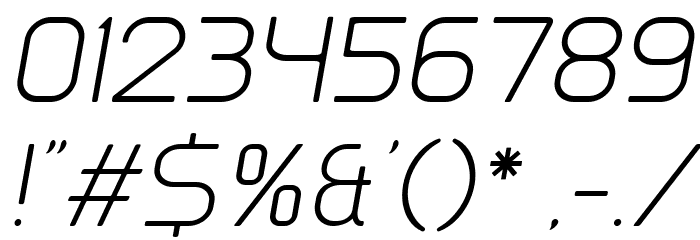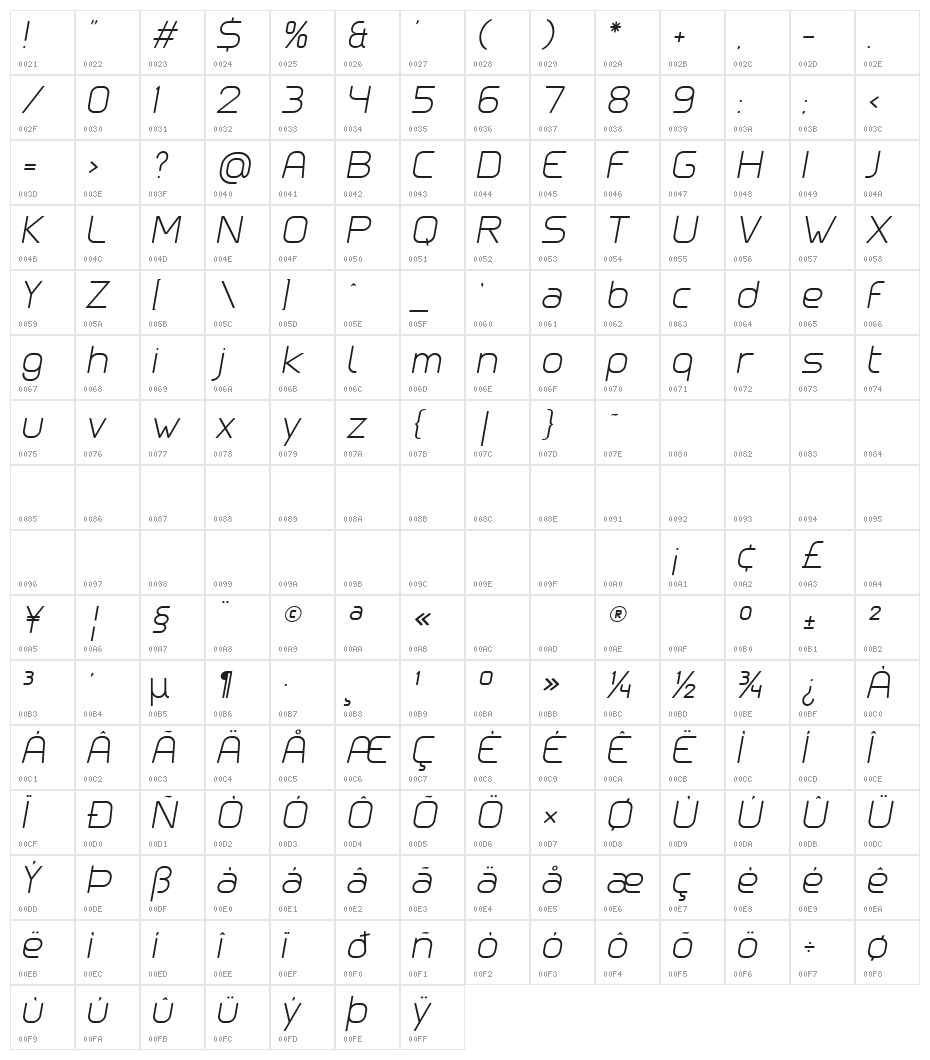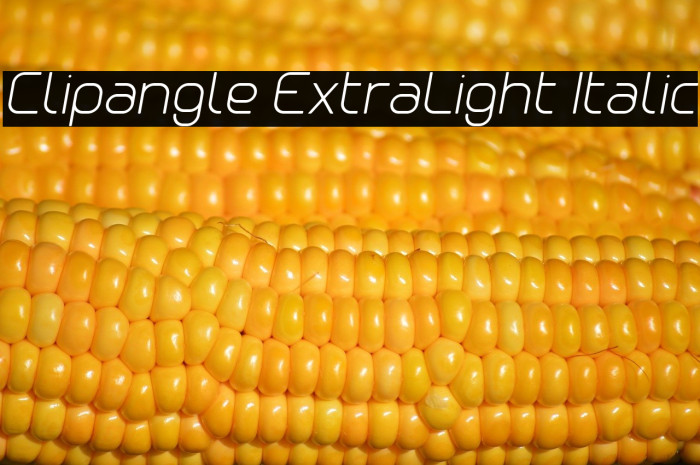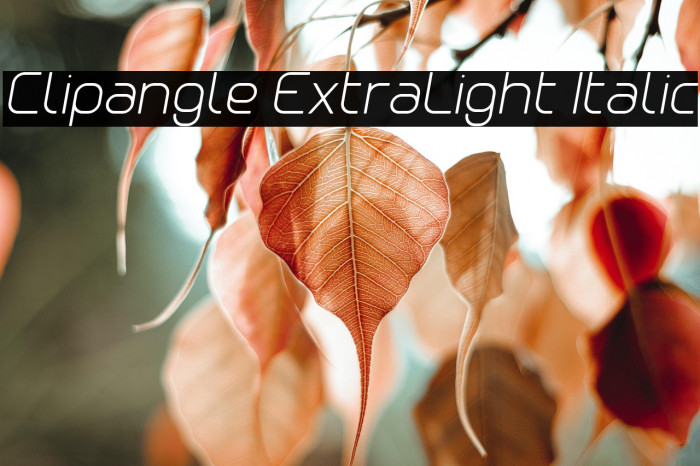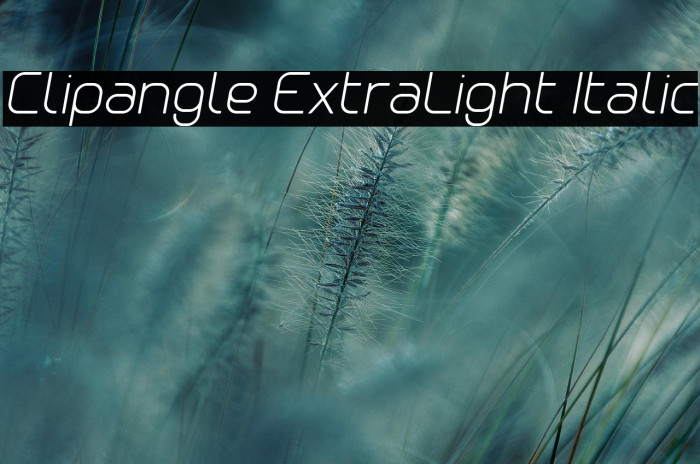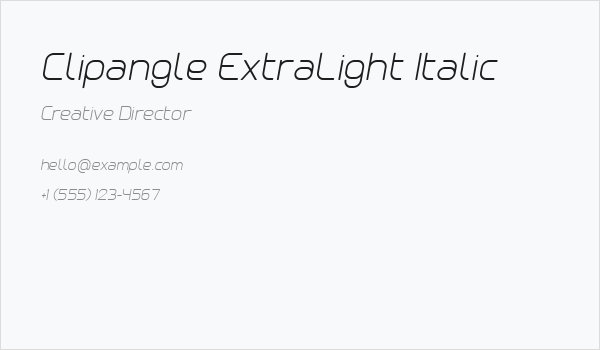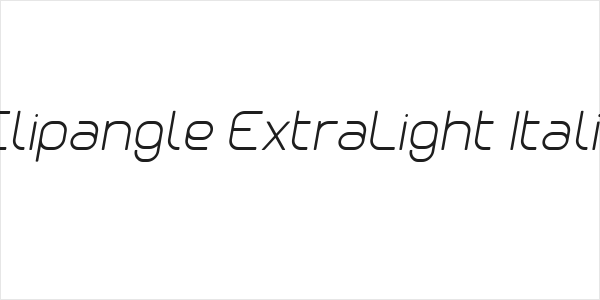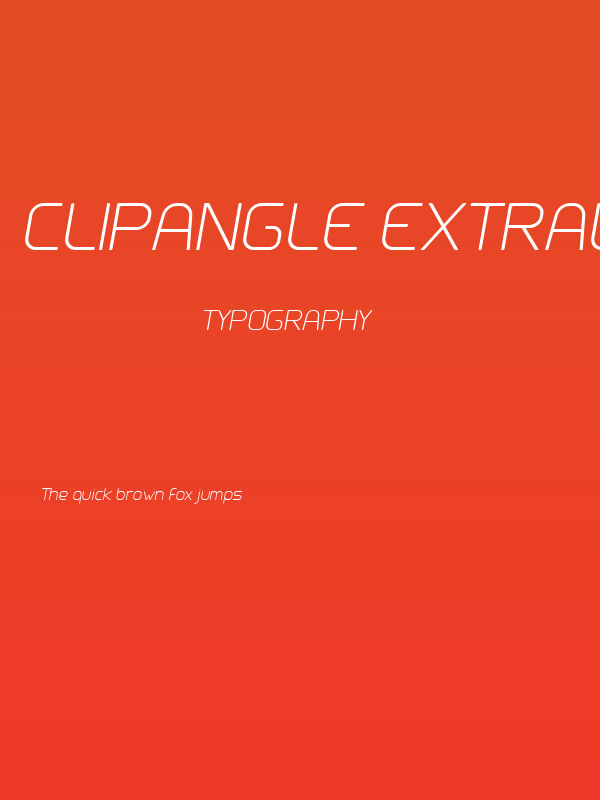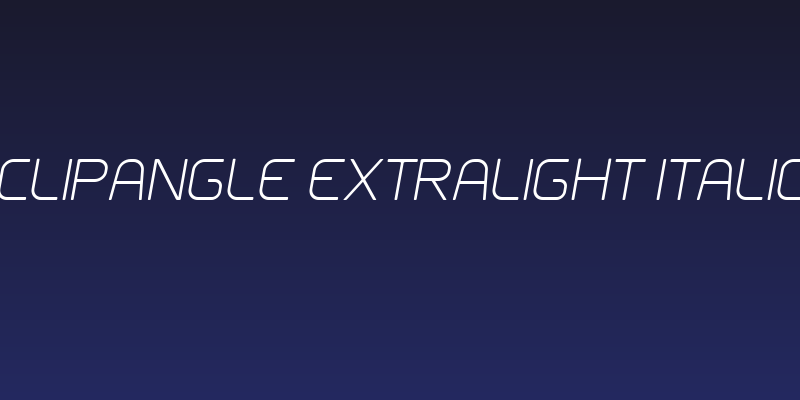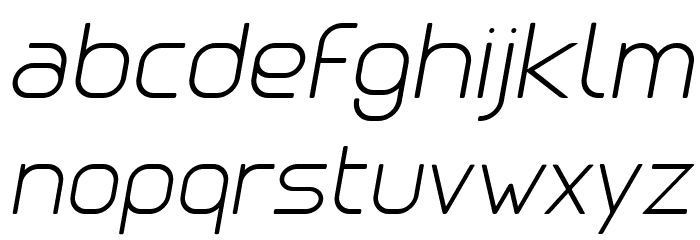
Clipangle ExtraLight Italic Font
Clipangle ExtraLight Italic Description
This font features a sleek, modern design with a distinct italic slant, giving it a dynamic and forward-moving appearance. The characters are crafted with an extra-light weight, emphasizing a minimalist aesthetic. The sans-serif style contributes to its clean and uncluttered look, making it suitable for contemporary design projects. The rounded edges and smooth curves of the letters add a touch of elegance, while the consistent stroke width maintains uniformity across the typeface. The font's geometric structure ensures readability, even at smaller sizes, and its open character spacing enhances legibility.
| Proposed Projects | Ideal for tech branding, modern advertising, digital interfaces, and minimalist design projects. |